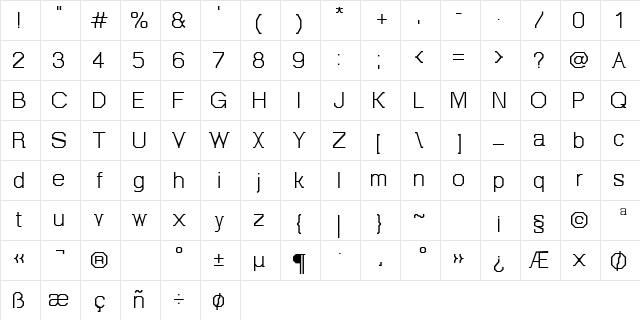
Octovetica Free Regular Free Font
Octovetica Free Regular
Foundry: Guillaume-Ulrich Chifflot (N9 Multimedia Lab)
Designer: Guillaume-Ulrich Chifflot
Design Context for Octovetica Free
Octovetica Free is a composed and adaptable typeface that performs quietly and consistently across a wide range of design contexts.